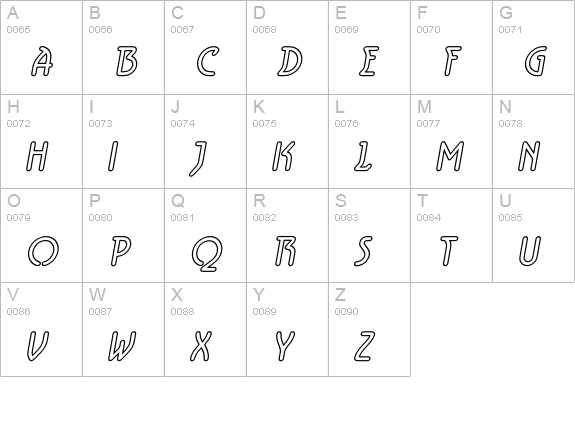
Aerolite Sky Italic Font Details
Aerolite Sky Italic is a distinctive, italic variant in the Aerolite typeface family \xE2\x80\x94 well suited to design and typography projects.
Aerolite Sky Italic is a stunning display font that effortlessly captures the essence of the sky. Its elegant and graceful curves emulate the fluidity of the clouds, making it the perfect choice for designs that seek to evoke a sense of freedom and tranquility. This font features a unique italic style that adds a touch of sophistication and modernity to any project. Its sleek and slender letterforms create a harmonious flow, effortlessly guiding the reader's eye across the page. Aerolite Sky Italic is not only visually captivating but also highly versatile. It lends itself well to a wide range of design applications, including logos, titles, invitations, posters, and more. Whether you're creating a serene branding package or a captivating editorial layout, this font will undoubtedly elevate your design to new heights. But what truly sets Aerolite Sky Italic apart is that it is freely available to download at FontsMarket.com. This means that you can effortlessly add this stunning font to your collection without breaking the bank. So why wait? Embrace the freedom of design and download Aerolite Sky Italic today to infuse your projects with a touch of elegance and grace.